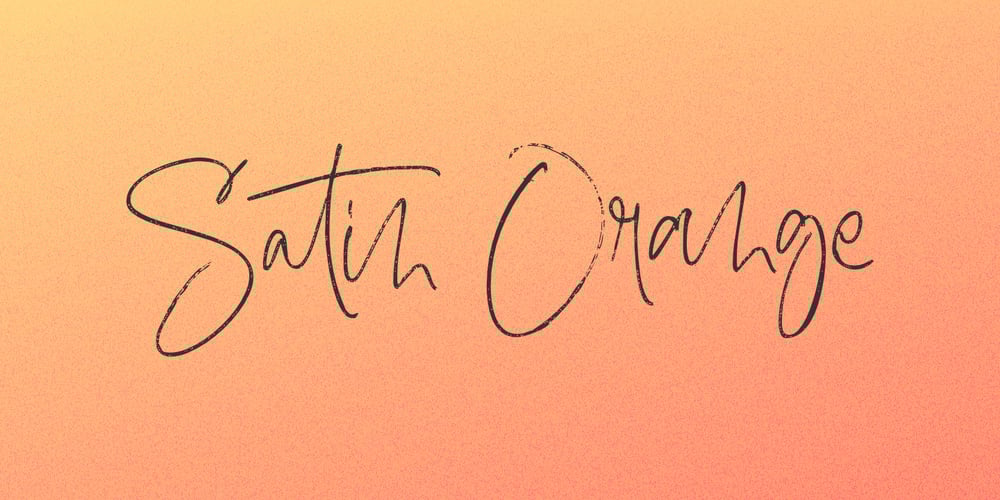
Satin Orange
Satin Orange font
Satin Orange Font Family was designed by Aldy Sidik and published by Epiclinez. Satin Orange contains 1 styles and family package options. Satin Orange is an elegant and delicate script font. This versatile script font has a wide spectrum of applications ranging from greeting cards to headlines and is guaranteed to add a romantic feel to your next project.So what’s included : Basic Latin A-Z & a-z Numbers, symbols, and punctuations Ligatures Accented Characters : ÀÁÂÃÄÅÆÇÈÉÊËÌÍÎÏÑÒÓÔÕÖØŒŠÙÚÛÜŸÝŽàáâãäåæçèéêëìíîïñòóôõöøœšùúûüýÿžß Thank you